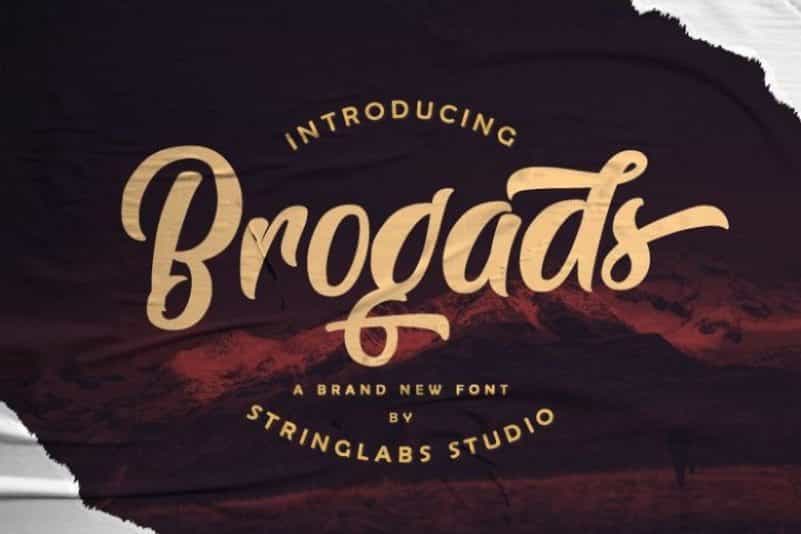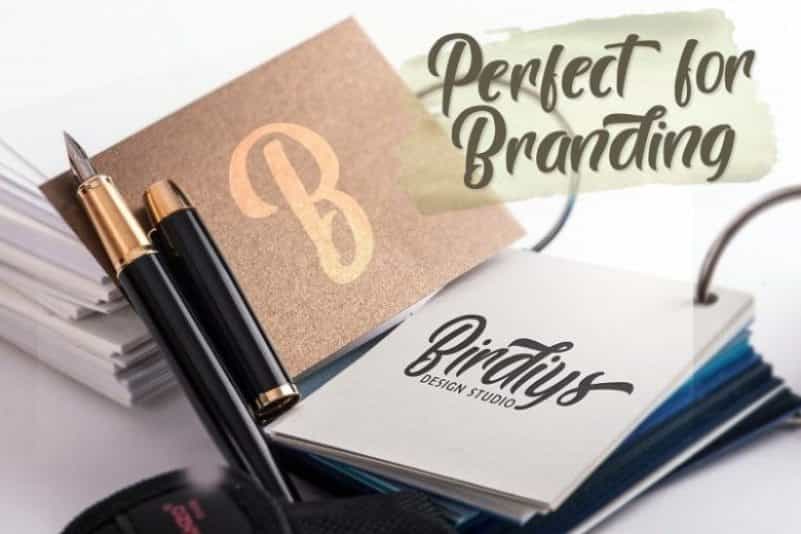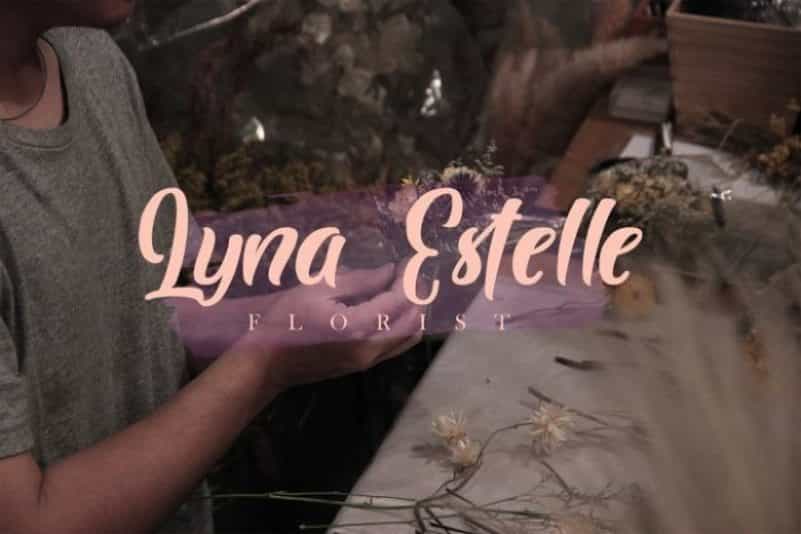
Discover Brogads Script Font, part of the Brush Handwritten collection—a versatile and unique font perfect for adding a personal touch to your projects. Download it for free and enjoy crafting designs with style, from invitations to social media posts. This font is available exclusively for personal use, giving you the freedom to create without limits. Unlock your creativity with Brogads Script Font today!
The Brogads Font is a perfect fit for your collection of fonts, it shows love and brings out the real you! Everything’s well with cursive! Prove your wealth and luxury by using this font of elegance and mesmerize the people you are speaking to as they see these cursive letters in your projects.